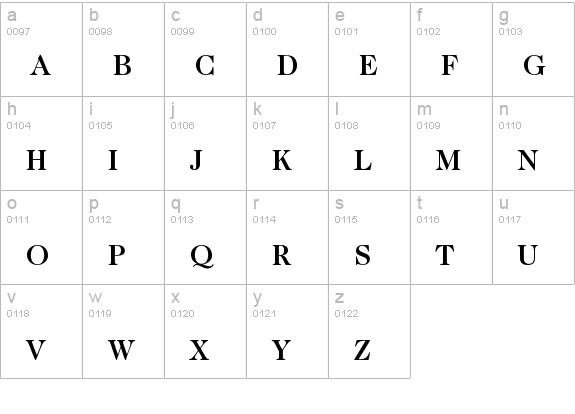
Caslon335Smc-Regular Font Details
Caslon335Smc-Regular is the standard, neutral variant in the Caslon335Smc typeface family \xE2\x80\x94 well suited to general body text, paragraphs, and standard typographic work.
Caslon335Smc-Regular is a classic serif font that exudes elegance and sophistication. Its timeless design makes it the perfect choice for projects that require a touch of traditional charm. The well-balanced letterforms and subtle serifs create a sense of refinement and professionalism. This font is versatile and can be used for a wide range of applications, from branding and editorial design to invitations and packaging. Its legibility and readability make it ideal for body text as well as headings and titles. Best of all, Caslon335Smc-Regular is available for free download at FontsMarket.com. Whether you're a designer looking to add a touch of sophistication to your projects or a business owner in need of a polished typeface, Caslon335Smc-Regular is sure to impress. Download it today and elevate your designs with this timeless font.